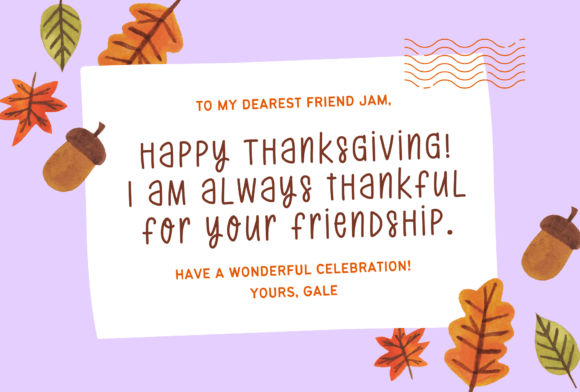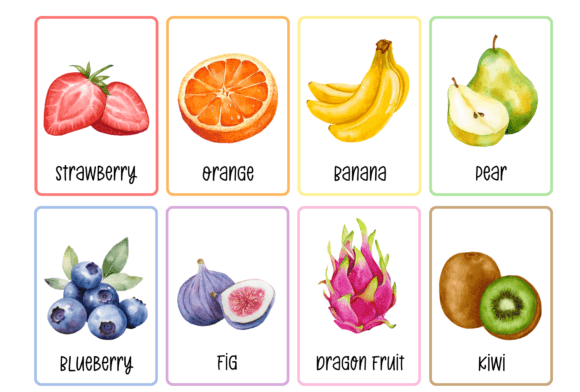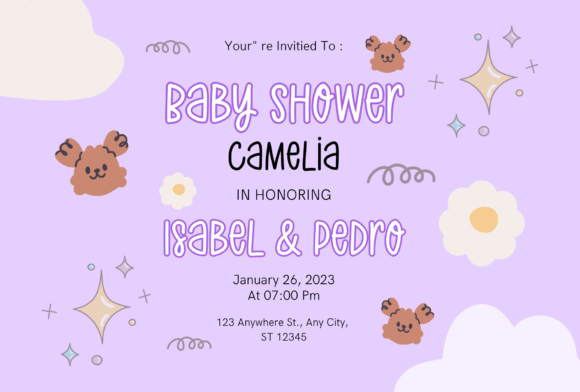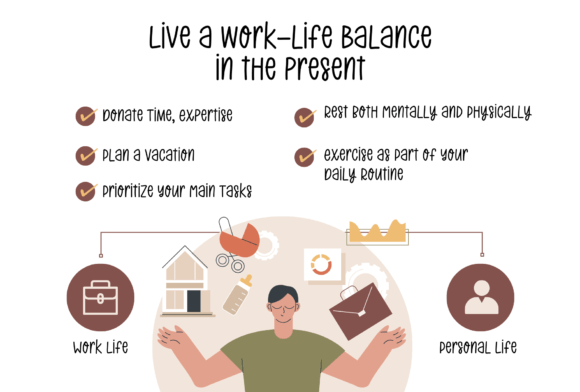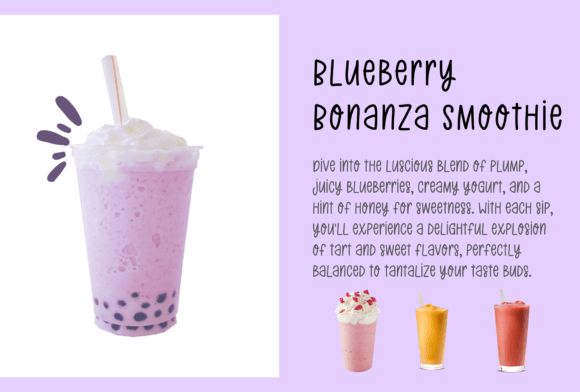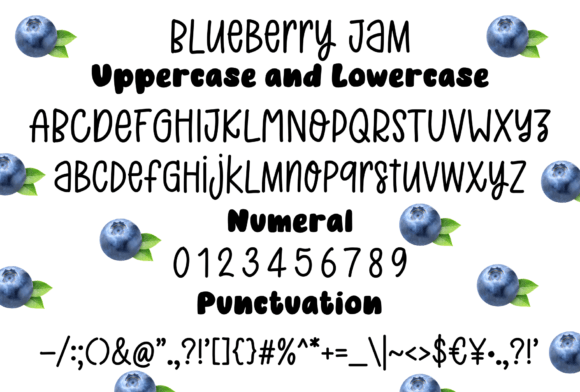
Introduction to Blueberry Jam Font
As you sit at your desk, surrounded by scattered papers, glue sticks, and half-finished craft projects, you stumble upon a moment of pure creative bliss. Your eyes land on a beautiful handwritten font that instantly sparks an idea for a new design. This is exactly what happened when I discovered the Blueberry Jam Font – a delightful, free download that adds a touch of whimsy to any creative project.
For designers and crafty enthusiasts, having access to a high-quality, versatile font like Blueberry Jam Font is invaluable. Whether you’re creating digital art, designing T-shirts, or crafting stickers and planners, this font is the perfect design resource to elevate your work. With its transparent background and playful aesthetic, Blueberry Jam Font is perfect for adding a personal touch to your projects.
Key Features of Blueberry Jam Font
• Unique Hand-Drawn Design: The Blueberry Jam Font features a distinctive hand-drawn design with intricate details and textures, making it perfect for creative projects.
• Perfect for Creative Projects: With its playful and whimsical feel, the Blueberry Jam Font is ideal for various creative projects, including branding, packaging, and editorial design.
Honest Review: Blueberry Jam Font
I recently stumbled upon the Blueberry Jam Font while searching for a free design resource to use for my next creative project. The moment I downloaded it, I was excited to see how it would look. The Blueberry Jam Font is available for free download, making it a great addition to any designer’s arsenal.
The font is high quality, with crisp lines and smooth curves. It’s perfect for use in titles, headings, or even as a body font for a creative project. I particularly love the transparent background, which allows for seamless integration with any design.
Here are some of the things that work well with the Blueberry Jam Font:
• ✨ Unique and playful design
• ✨ Perfect for creative and whimsical projects
• ✨ High quality and crisp lines
• ✨ Transparent background for easy integration
• ⚠️ Limited character set (only includes uppercase and lowercase letters, with a few punctuation marks)
• ⚠️ Not ideal for use in formal or professional settings
Overall, I’m really impressed with the Blueberry Jam Font. It’s a great addition to any designer’s toolbox, and I can see it being used in a variety of creative projects. While it’s not perfect, it’s definitely worth checking out if you’re looking for a free, high-quality font with a unique design.
Tips for Getting the Most Out of the Blueberry Jam Font
To get the most out of the Blueberry Jam Font, use it in creative projects that require a unique and playful touch. Experiment with different font sizes, colors, and combinations to create a visually appealing design.